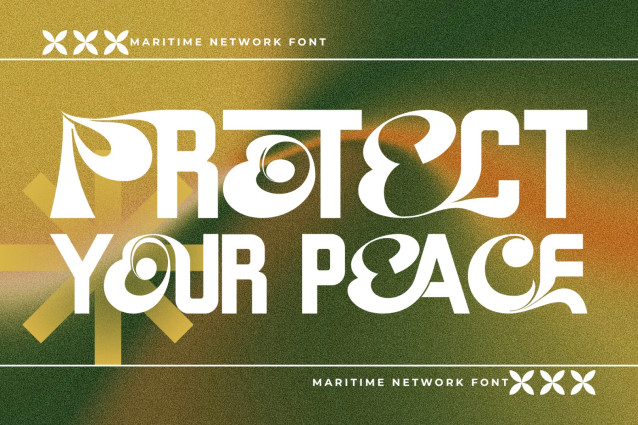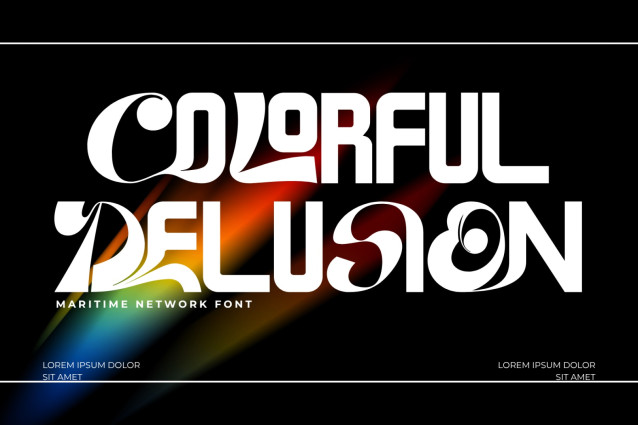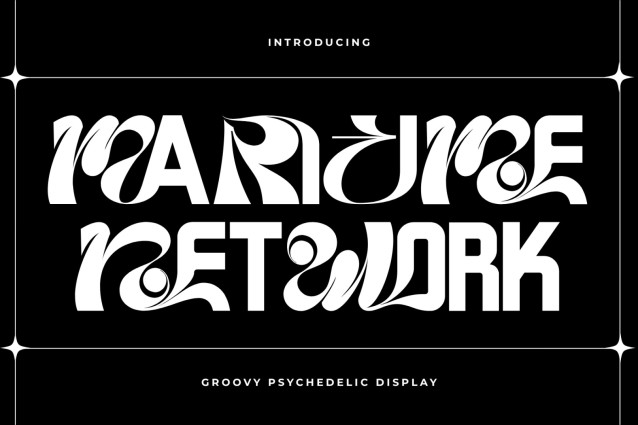
Maritime Network – Psychedelic Font – Psychedelic Ocean Wave & Liquid Display Font, a spellbinding psychedelic display font inspired by the fluid dynamics of ocean waves and 1970s liquid graphics. Characterized by its heavy chunky stature, sweeping wavy baselines, and embedded circular orb accents, this typeface brings an intoxicating organic rhythm and retro-futuristic energy to modern graphic design.
Featuring custom flame-like cutouts and fluid swoops that simulate cresting tides, Maritime Network transforms standard words into expressive typographic artwork. It is the perfect display choice for psychedelic album covers, surfwear and streetwear fashion, organic beverage packaging, summer music festival posters, and edgy lifestyle branding identities.